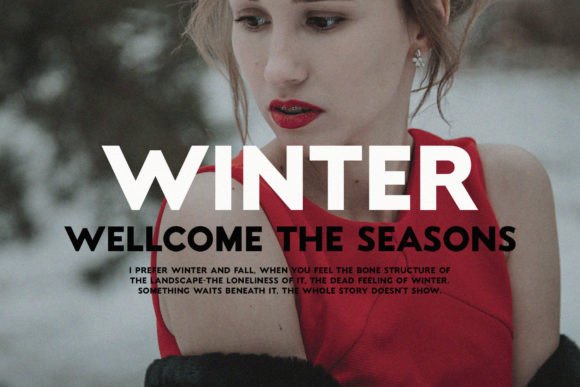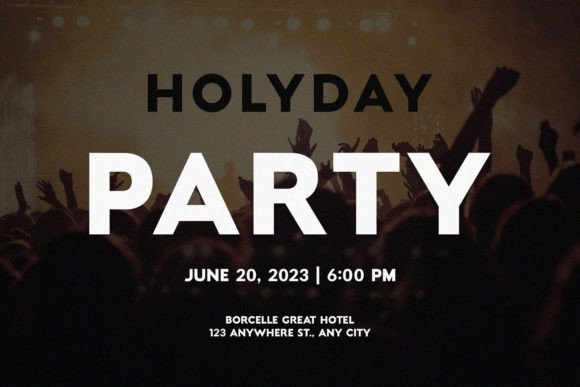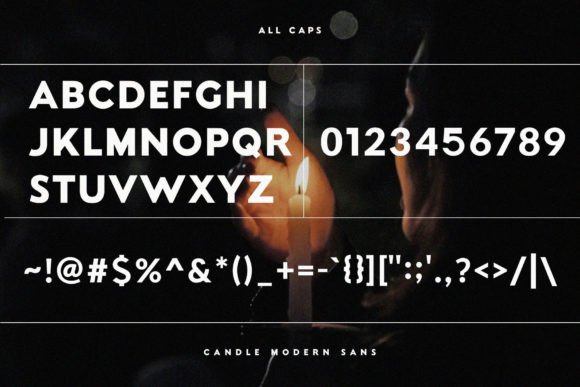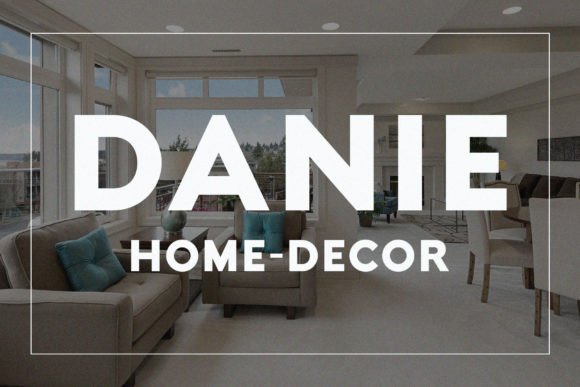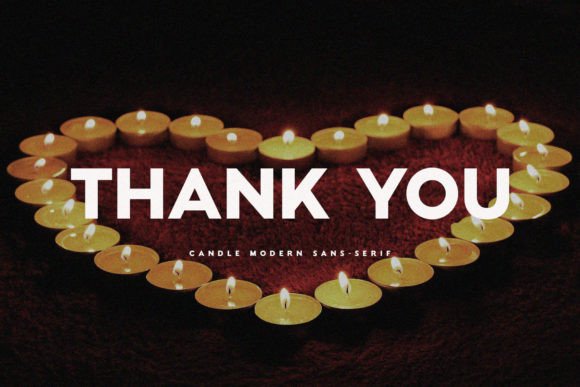
The Candle Font: A Beacon of Elegance for Your Designs
I’ll never forget the time I was working on a project for a luxury brand, and I was struggling to find the perfect font to convey their high-end aesthetic. The client wanted something modern, yet sophisticated, and I was determined to deliver. That’s when I stumbled upon the Candle font, a classy and modern sans serif font that instantly caught my eye. In this article, I’ll share my experience with Candle, its features, and how to make the most of it in your designs.
An Honest Review of Candle Font
So, what makes Candle font so special? Let’s dive into the good stuff! 😊
- ✨ Elegant and modern design: Candle font boasts a sleek and contemporary look that’s perfect for websites, logos, magazines, social media posts, and more.
- ✅ Highly versatile: This font is suitable for a wide range of design projects, from branding and advertising to packaging and editorial design.
- 👍 Easy to read: Despite its elegant design, Candle font remains highly legible, even at smaller font sizes.
Now, no font is perfect, and Candle has a few minor quirks to consider:
- 🤔 Limited language support: Candle font may not support all languages, so be sure to check the font’s specifications before using it for multilingual projects.
- ⚠️ Not ideal for body text: While Candle font is beautiful, it’s best suited for headlines, titles, and short paragraphs. For longer blocks of text, you may want to choose a more traditional serif font.
A Practical Guide to Using Candle Font
- Experiment with OpenType features, such as ligatures and stylistic alternates, to add an extra layer of elegance to your design.
- Explore the font’s glyphs and OpenType features, such as swashes and alternates, to add visual interest to your design.
- Use the font’s built-in features, such as bold and italic styles, to add emphasis to your text.
The Story Behind Candle Font
Candle font was designed with the goal of creating a modern, elegant sans serif font that would add a touch of sophistication to any design project. Inspired by the soft glow of candlelight, the font’s creator aimed to craft a font that would evoke feelings of warmth and refinement.
| Font Name | Candle Font |
| Author | Font Kingdom |
- Q: What type of projects is Candle font best suited for?
- A: Candle font is perfect for projects that require a touch of elegance and sophistication, such as luxury branding, advertising, and editorial design.
- Q: Is Candle font available in different weights and styles?
- A: Yes, Candle font comes in a range of weights and styles, allowing you to add depth and variety to your designs.
- Q: Can I use Candle font for body text?
- A: While Candle font is beautiful, it’s best suited for headlines, titles, and short paragraphs. For longer blocks of text, you may want to choose a more traditional serif font.